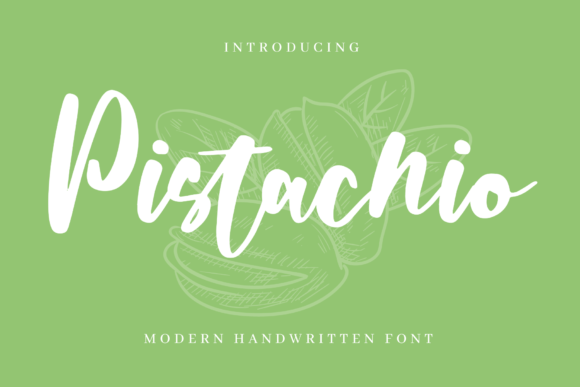
Journey into the world of branding with Pistachio, where creativity blooms and identities take flight. This captivating script font, crafted by Creaditive Design, is the ultimate tool to create a lasting impression. Its playful style dances across your designs, leaving a trail of unique and captivating messages.
Picture your brand adorned with the charm of Pistachio, its graceful curves wrapping around your logo, adding a touch of elegance and sophistication. Let your product cards burst with personality, as Pistachio's playful characters dance across the page, capturing the attention of potential customers.
Envision your labels transformed into mini works of art, each letter etched with care, conveying a sense of quality and attention to detail. Dive into the realm of social media, where Pistachio's lively strokes bring your posts to life, making them stand out amidst the digital noise.
With Pistachio, you're not just downloading a font; you're embracing a visual symphony that elevates your brand to new heights. Its PUA encoding grants you access to a treasure trove of glyphs and ligatures, providing endless possibilities for customization.
Don't settle for ordinary fonts. Choose Pistachio, and unlock the gateway to extraordinary branding. Let your creativity flourish with this exceptional script, and watch your brand blossom into something truly remarkable.